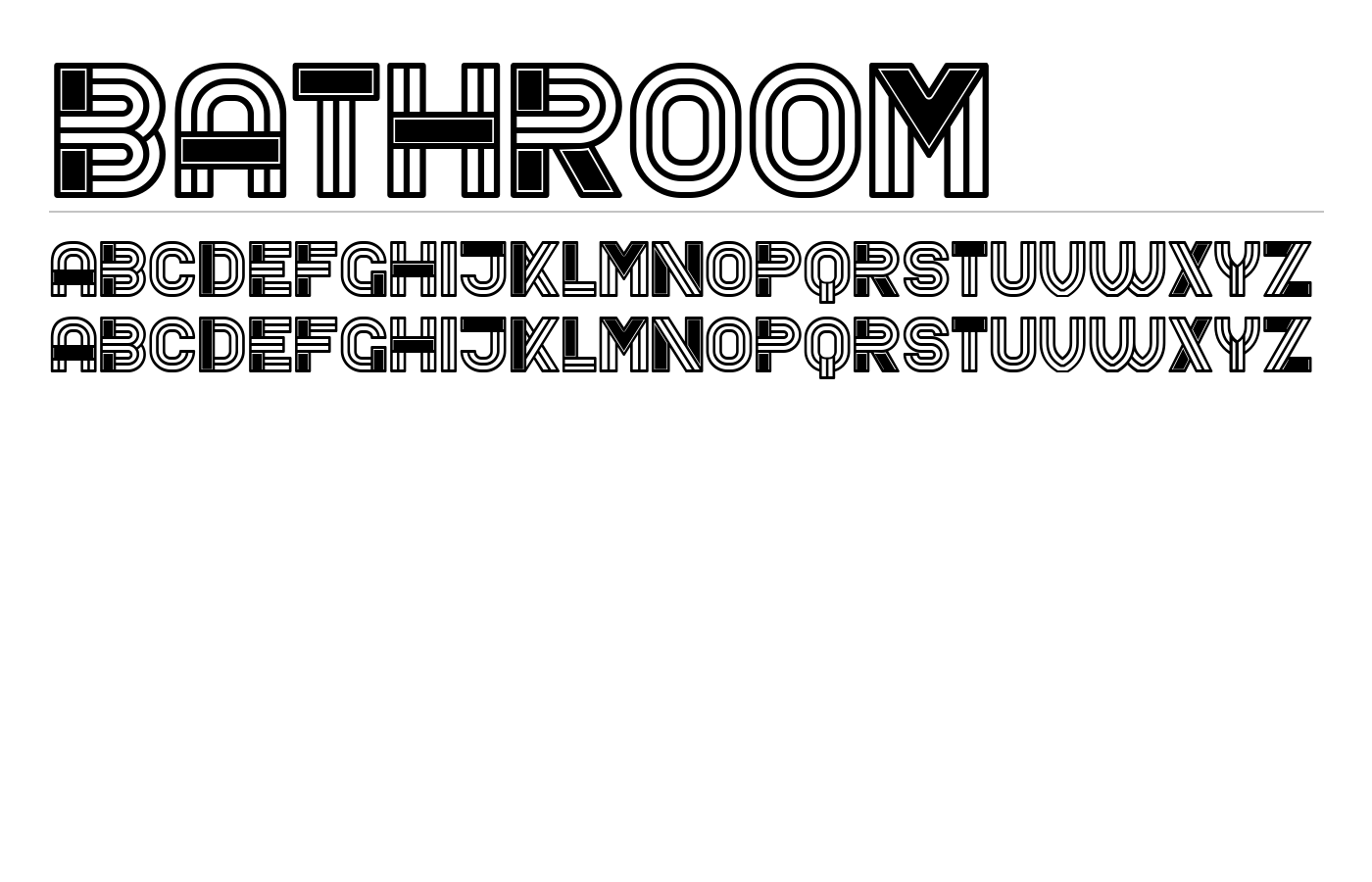
Bathroom Font is a bold, geometric sans serif with a playful, modern vibe characterized by its layered lines and decorative block fills, giving it a lively and dimensional look. Its heavy weight and unique patterning make it ideal for eye-catching headlines, logos, and creative designs where a fun, retro-inspired style is desired. This font works best in display use, adding personality and a distinctive flair to packaging, posters, and branding projects.
Bathroom Font
About Bathroom Font